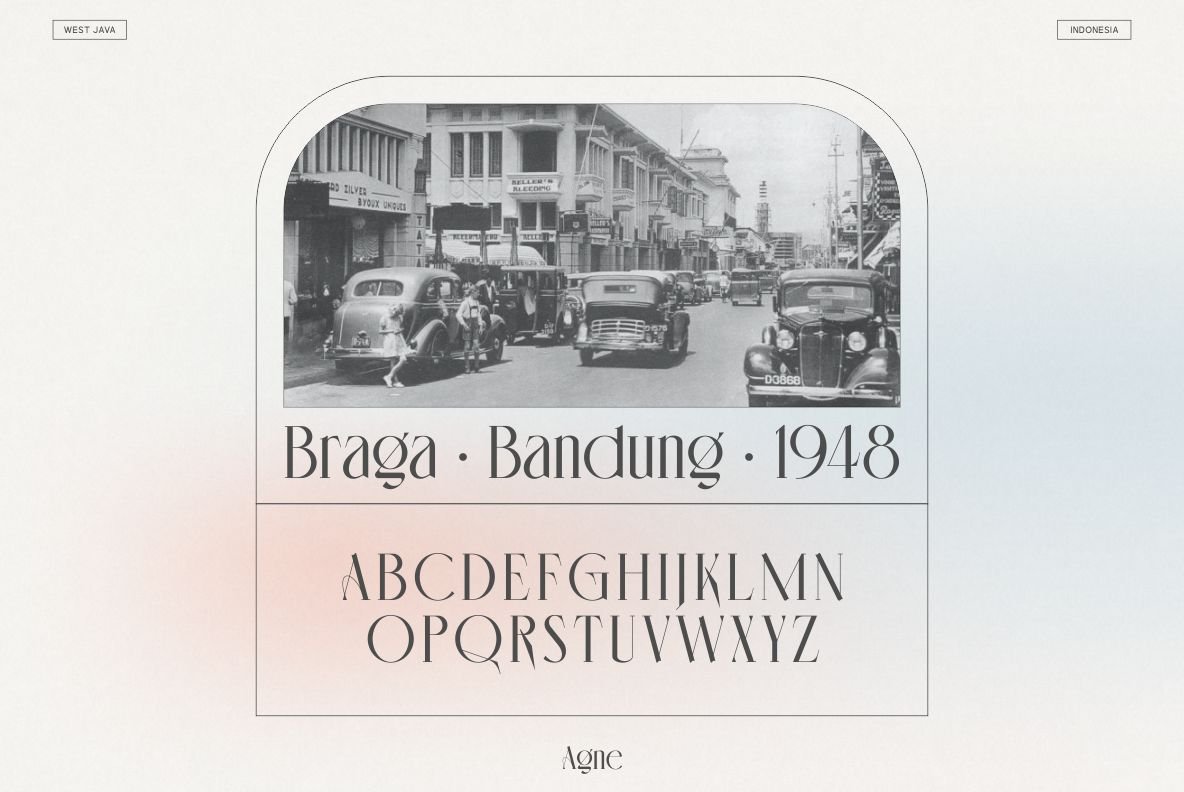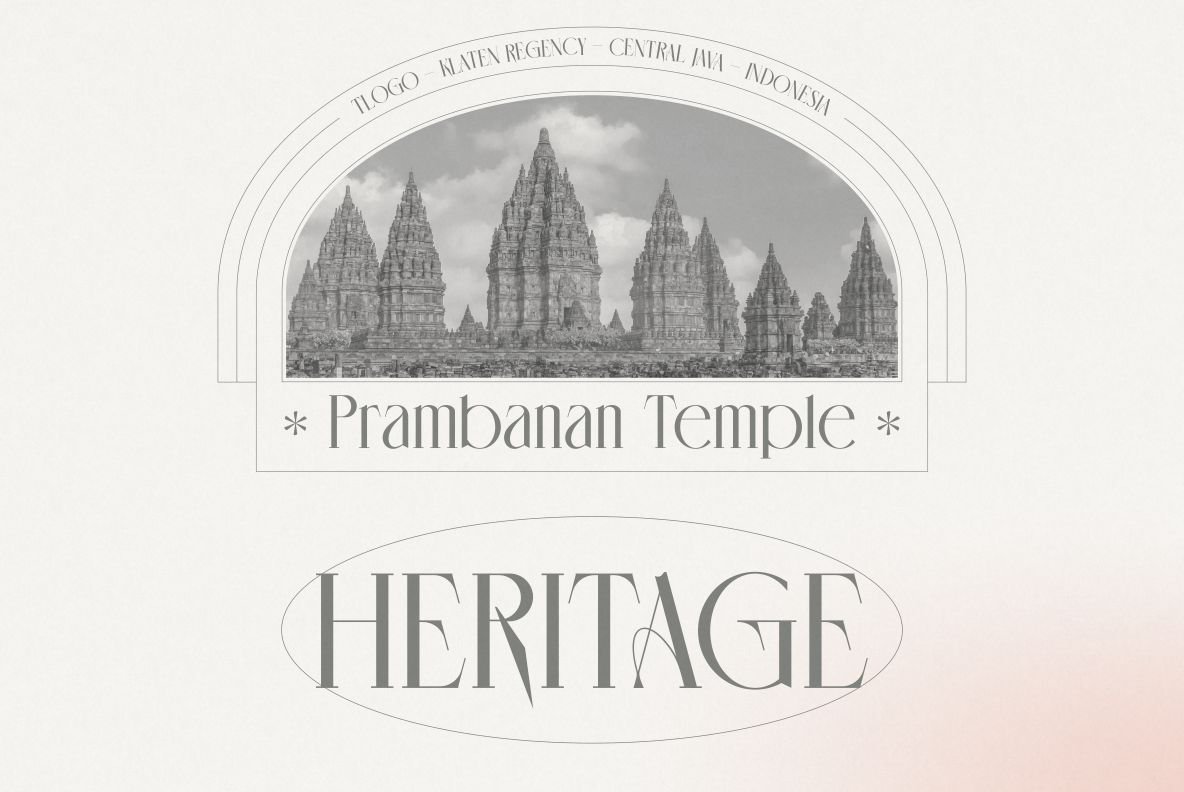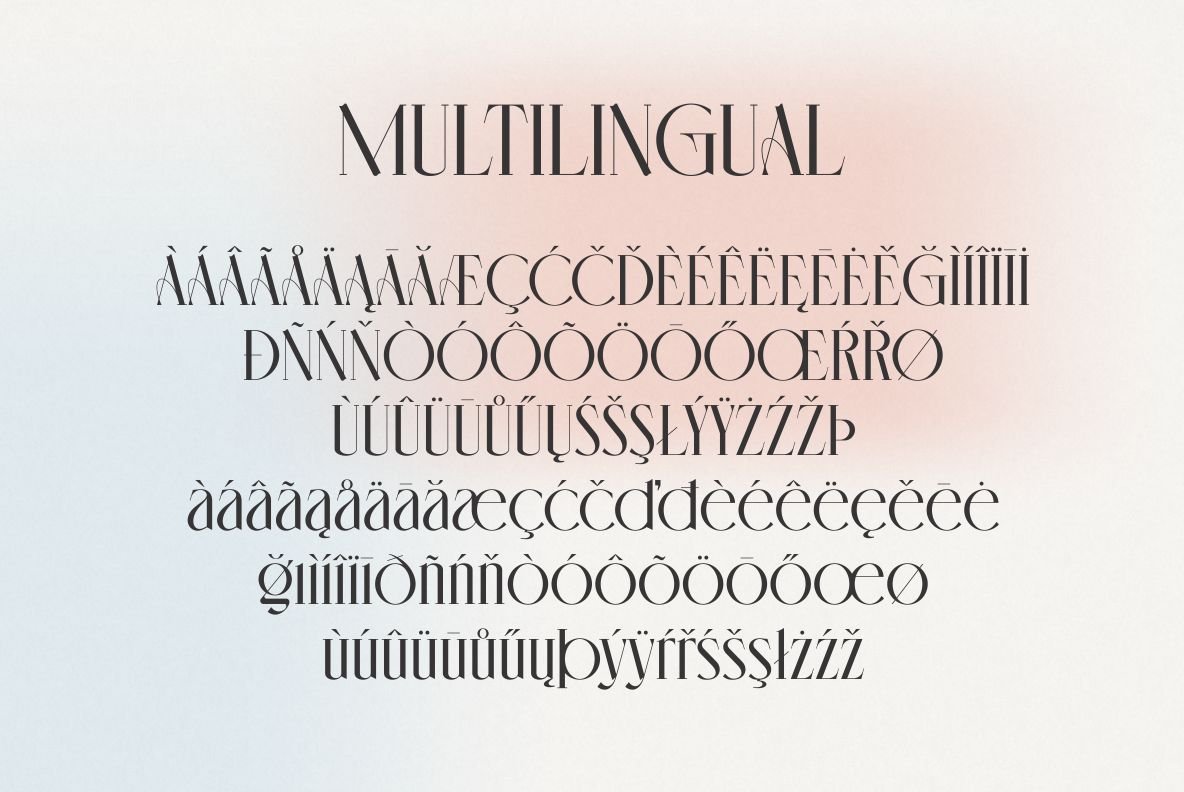
Agne is a versatile, modern and elegant sans serif font. Designed by Reza Rasenda & Riska Candra Dewi, It has a unique style with stylistic, alternates, ligatures and supports multilingual languages.
Create unique & beautiful logotype, use it as an elegant solution for your next magazine layout, or choose Agne for any graphics that require a sleek look with a elegant flair.